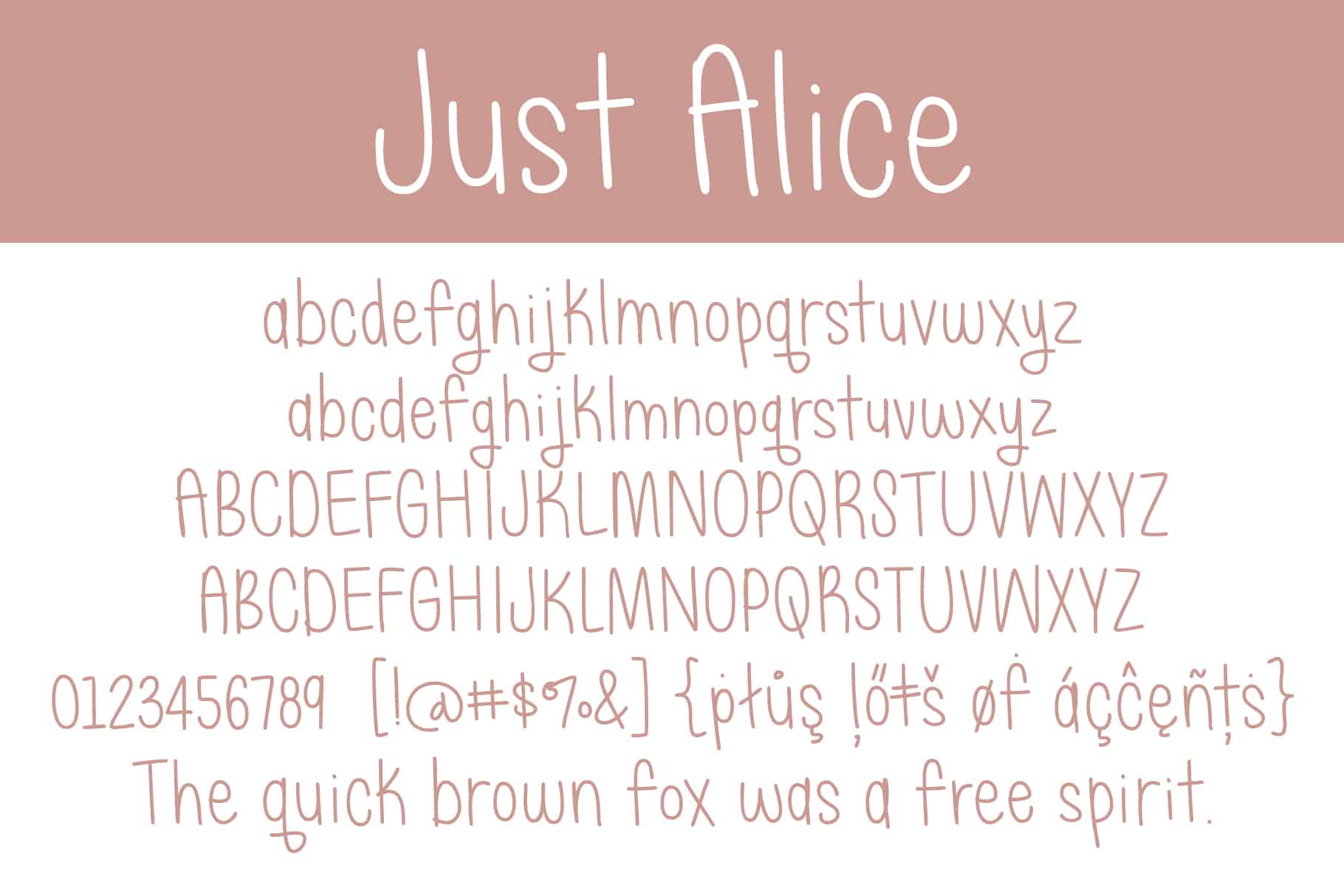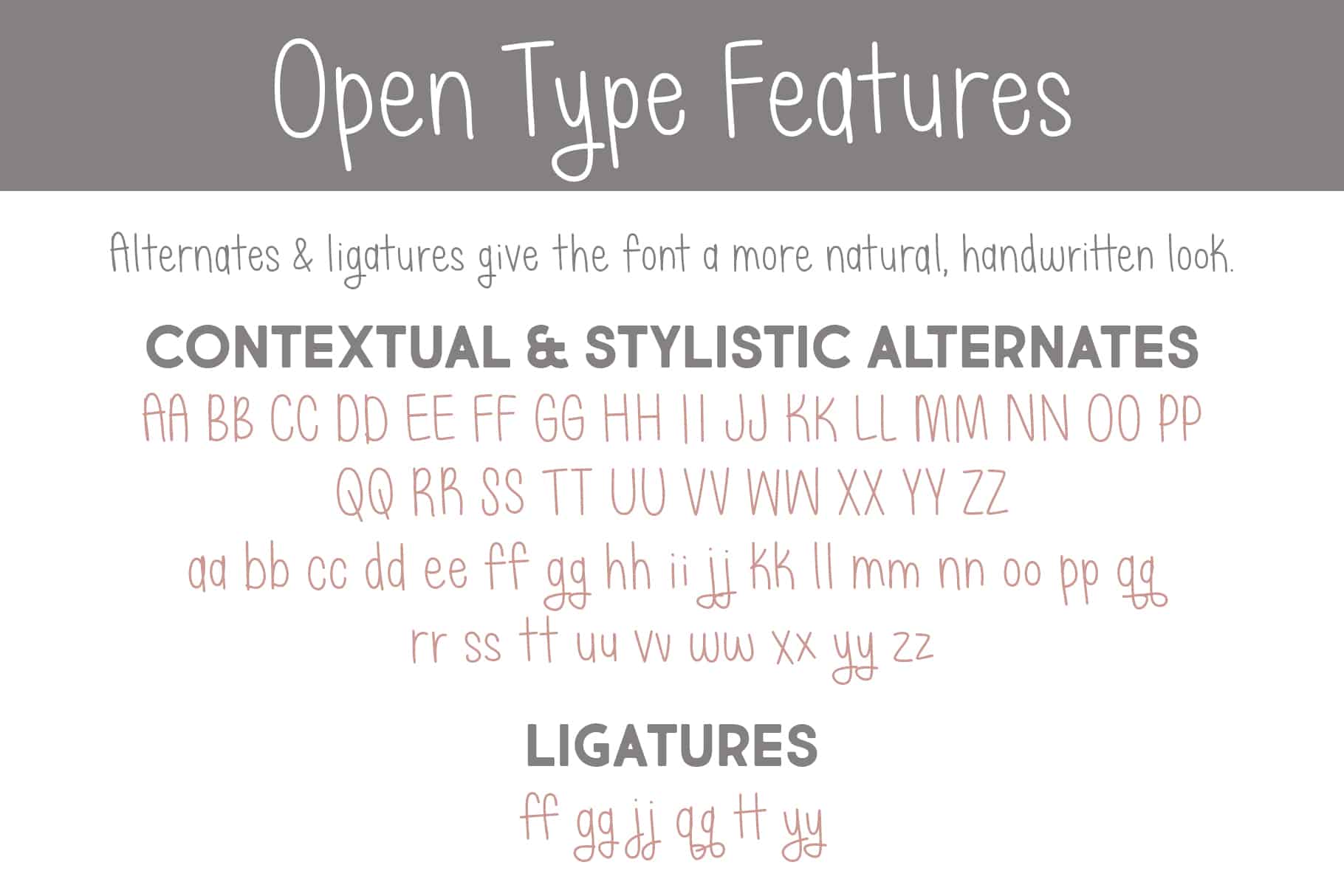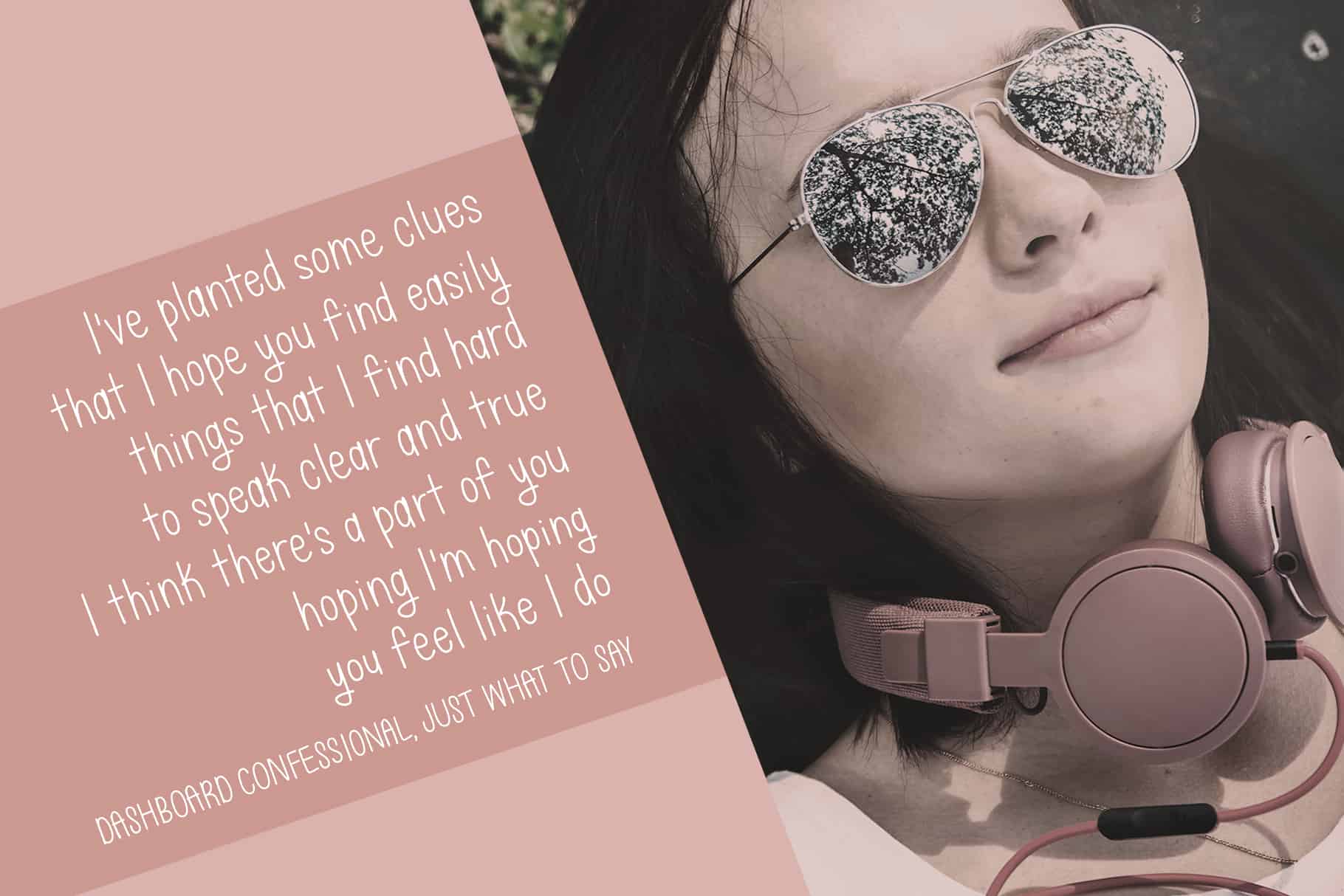
Just Alice
Just Alice is a natural, no-fuss handwriting with alternates and ligatures. Organic, yet highly legible, Just Alice is great for for adding personality to your notes, headlines, bylines or even text.